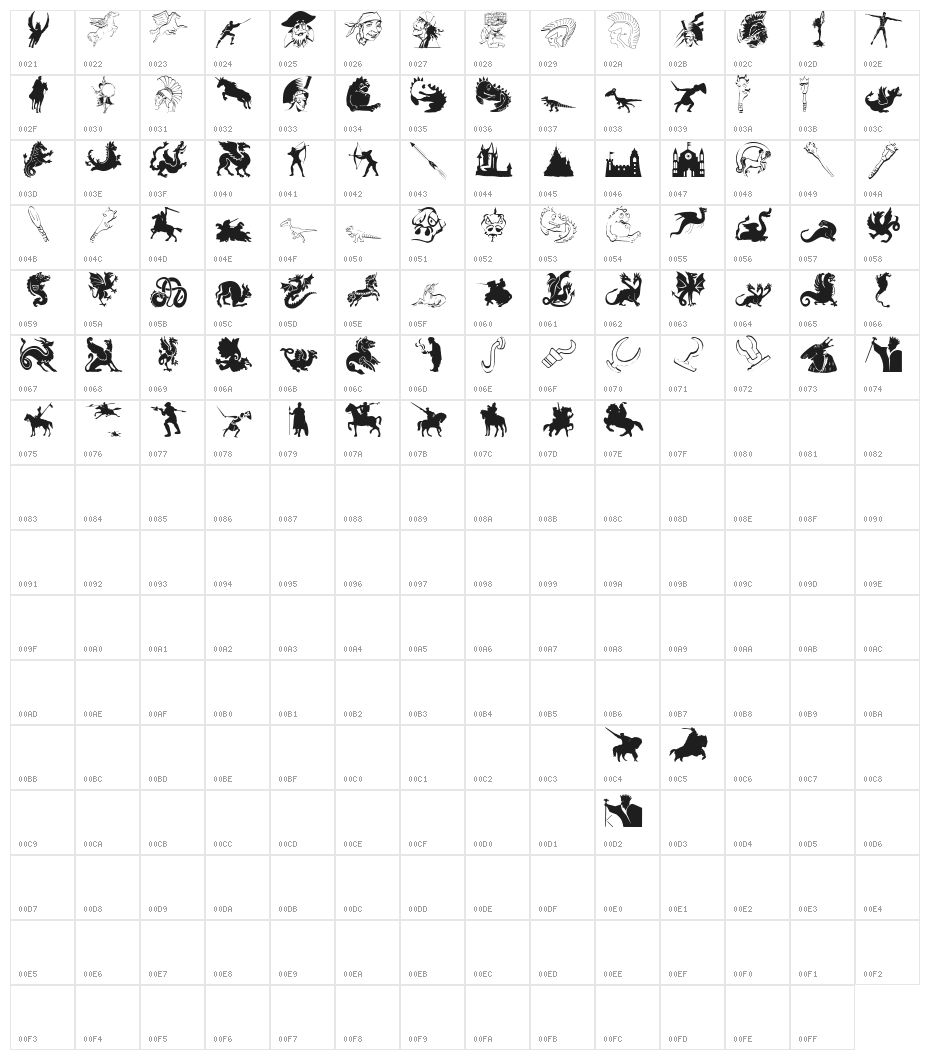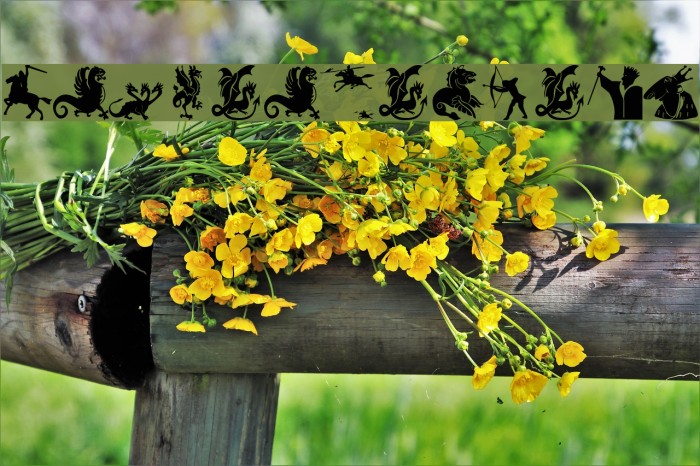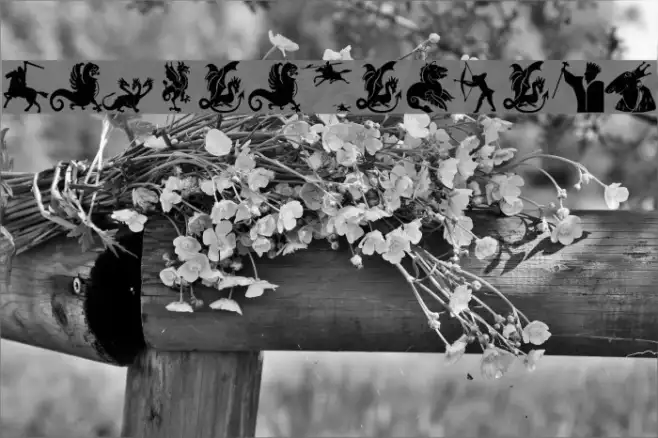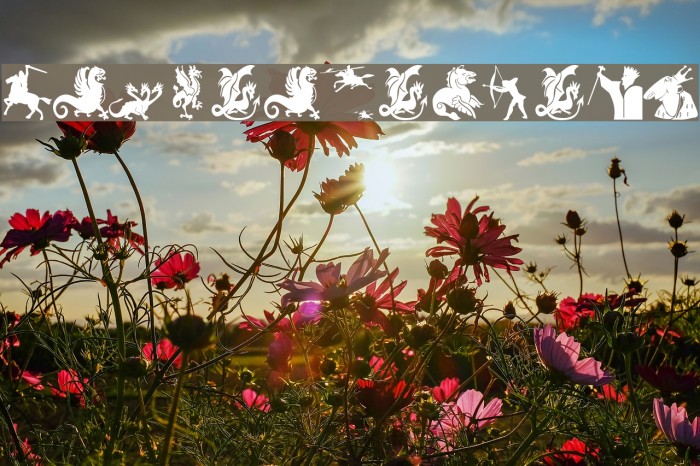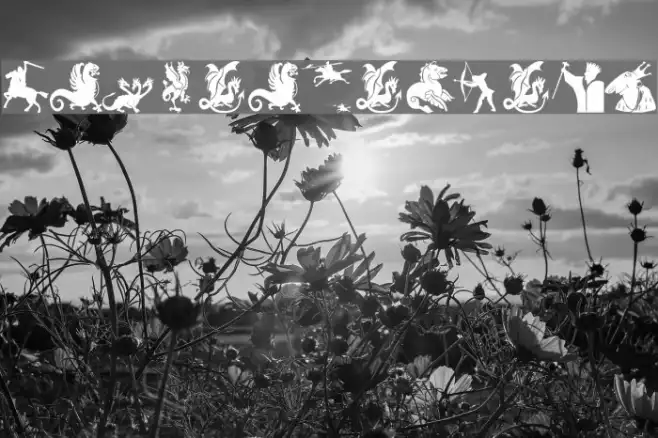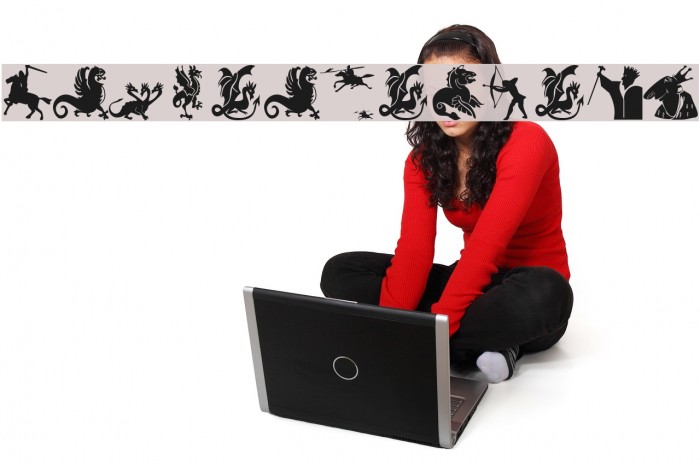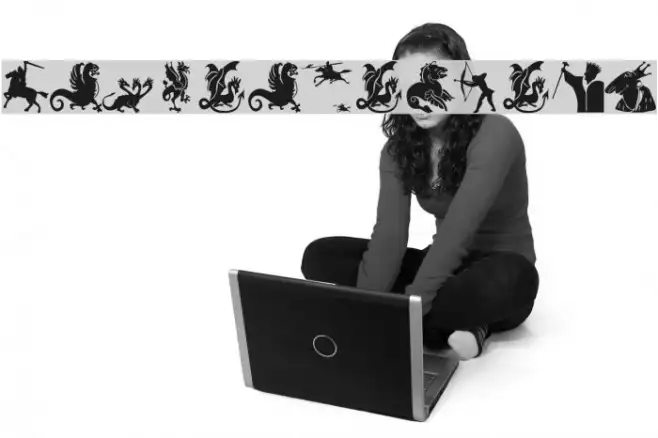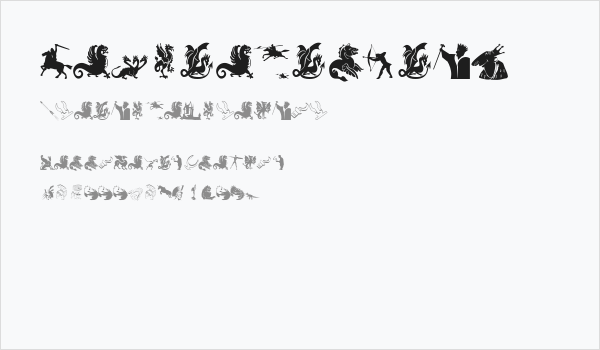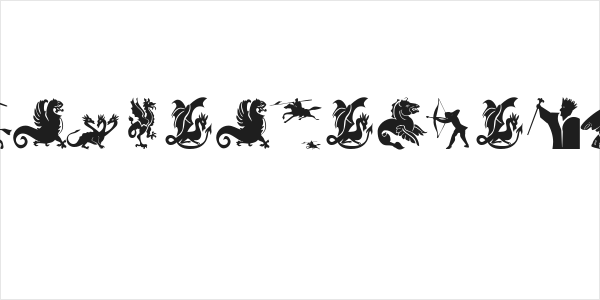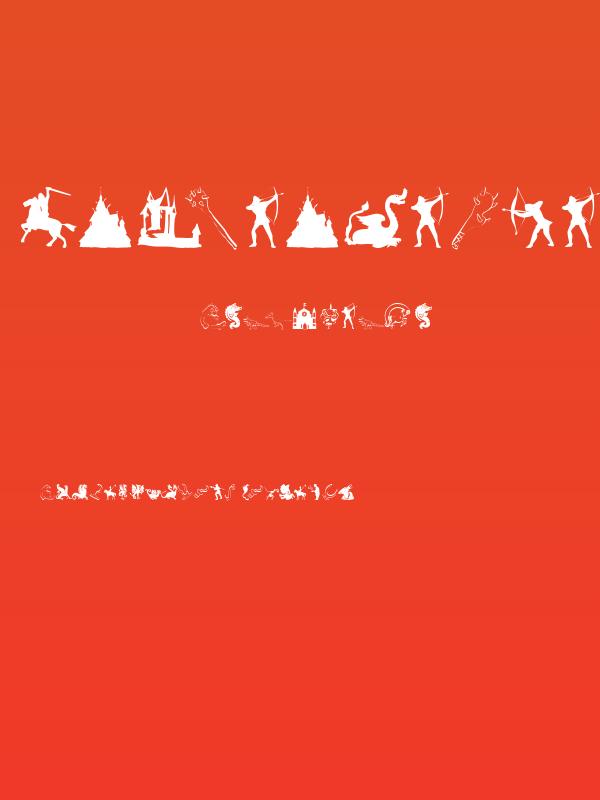
MediaevalBats Font
MediaevalBats Description
A decorative dingbat font featuring a variety of medieval-themed silhouettes, including archers, castles, mythical creatures, dragons, knights, weapons, and historical figures. The glyphs are highly illustrative, with both filled and outlined styles, and are designed for visual storytelling rather than traditional text.
| Overall Style | Decorative, Fantasy, Thematic |
| Use Case | Icons, Illustrations, Themed graphics, Decorative elements |
| Proposed Projects | Fantasy book covers, RPG game materials, event posters, educational resources, themed invitations. |